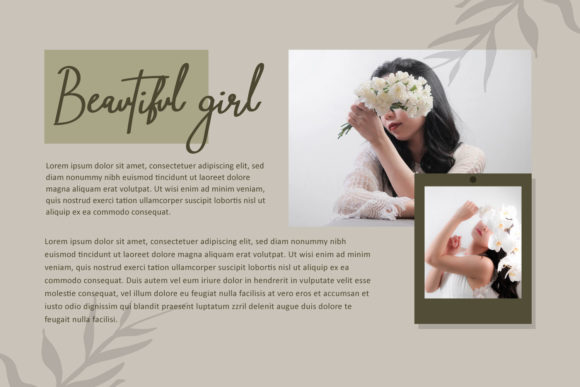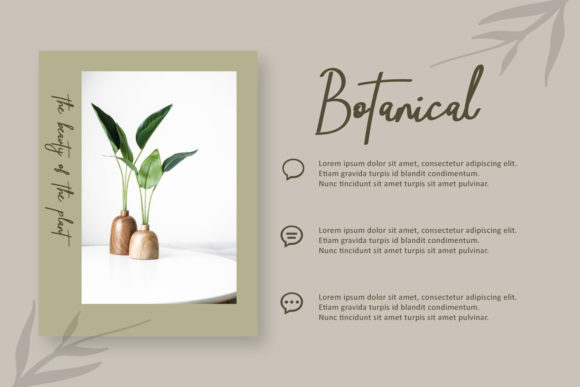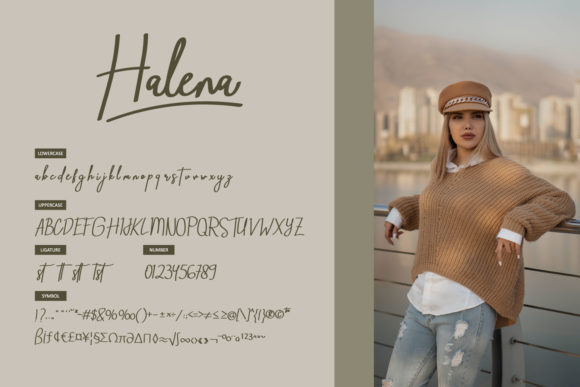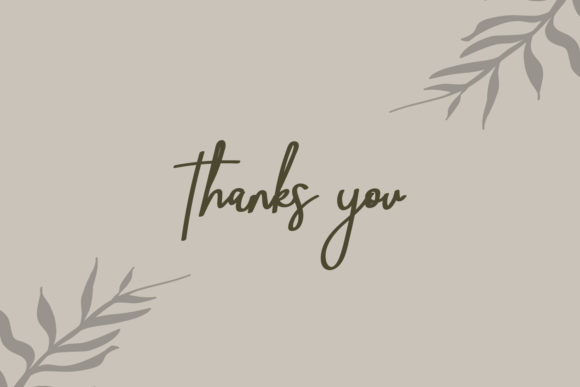
About Halena Font
Halena is a minimalist handwritten font with delicate, and incredibly beautiful lines. Fall in love with its authentic feel. It will add a joyful touch to your designs. It is suitable for any branding, product packaging, invitation, quote, t-shirt, label, poster, logo that you wish to develop.